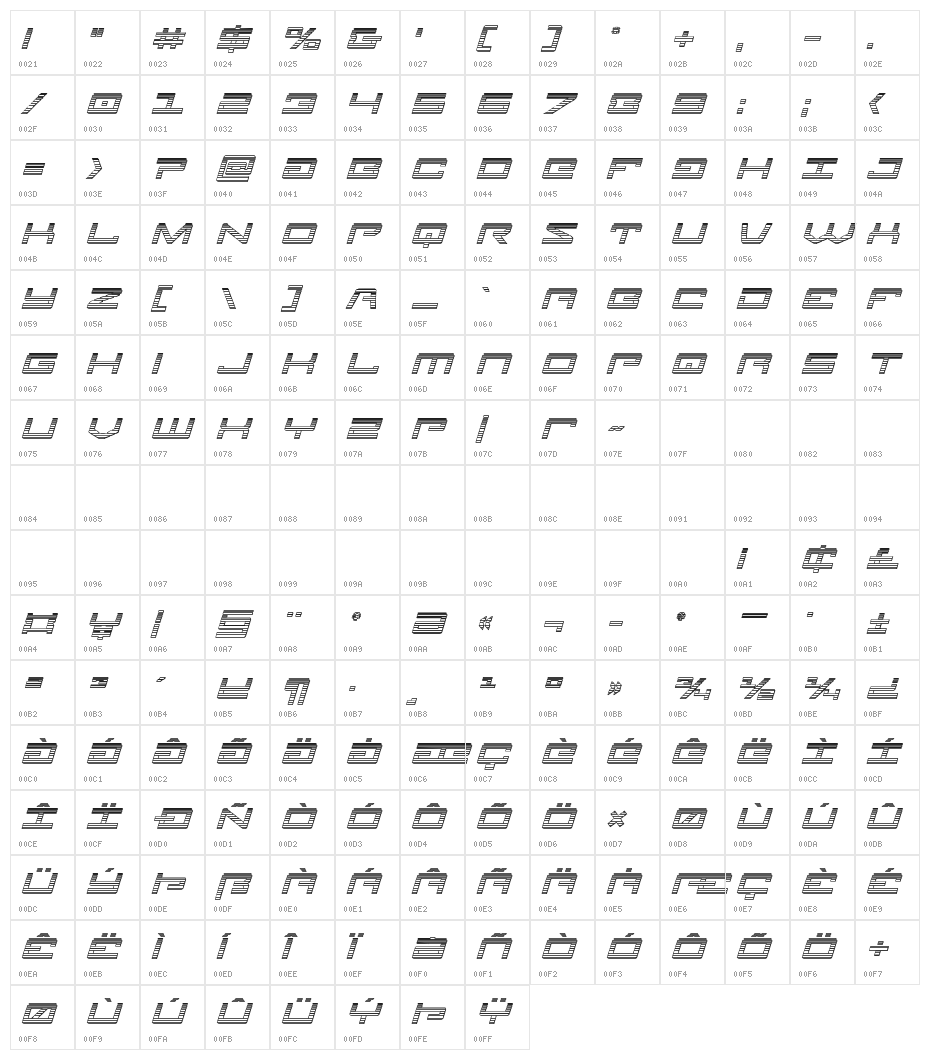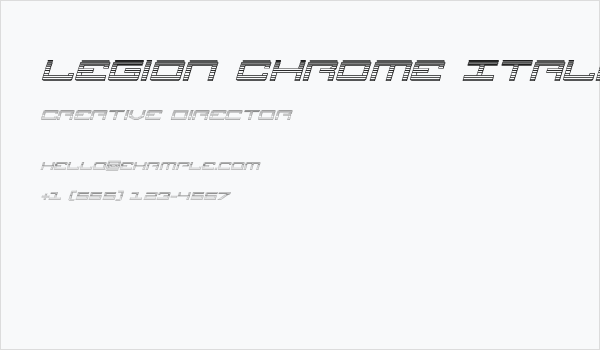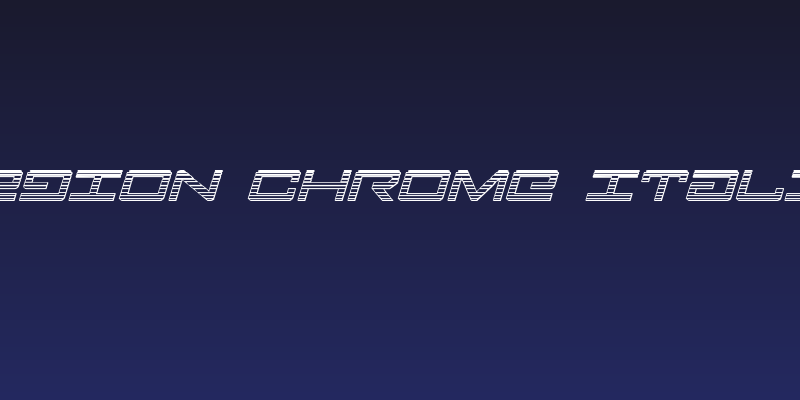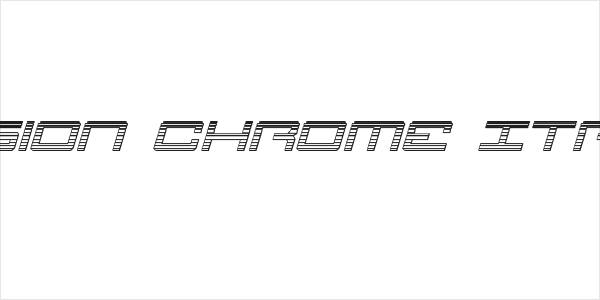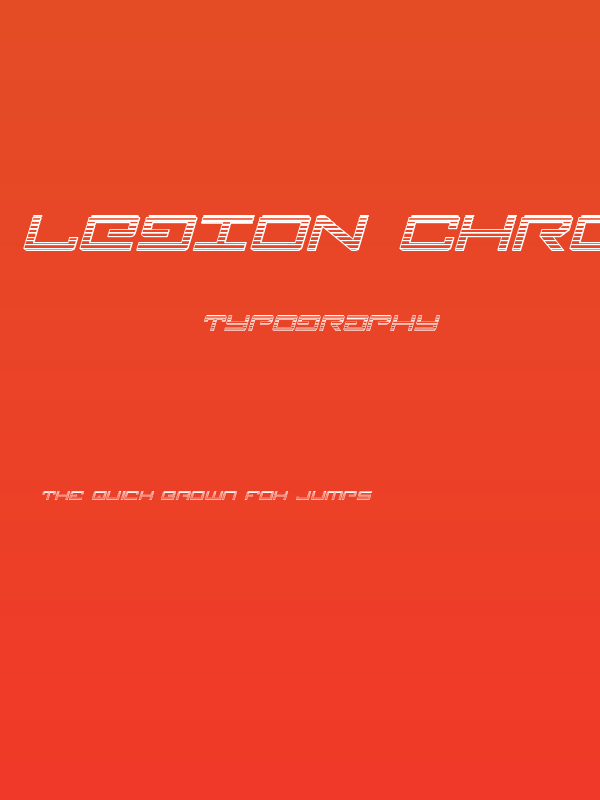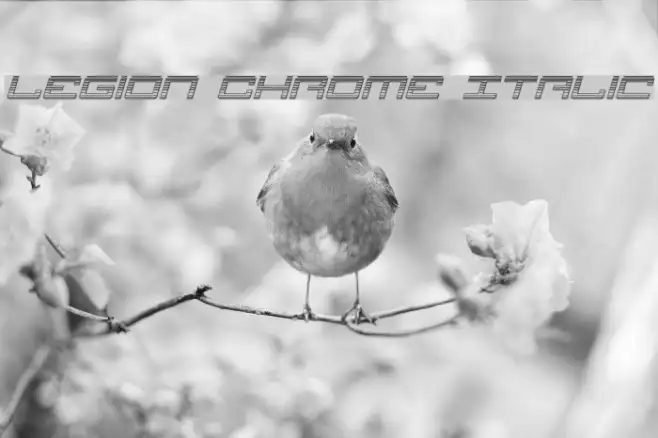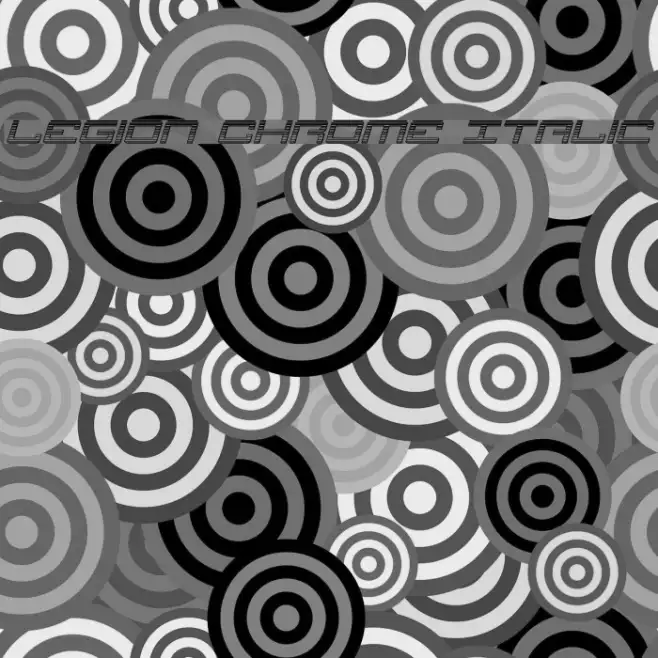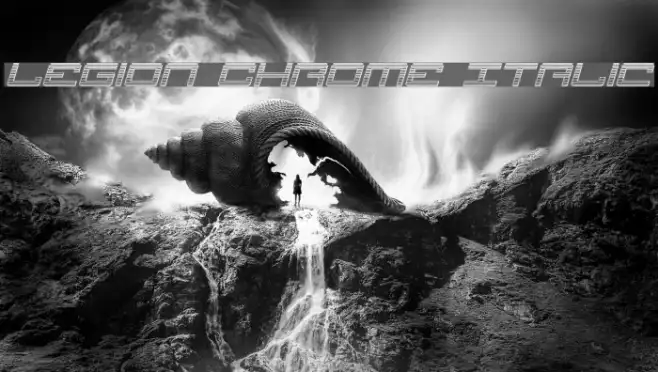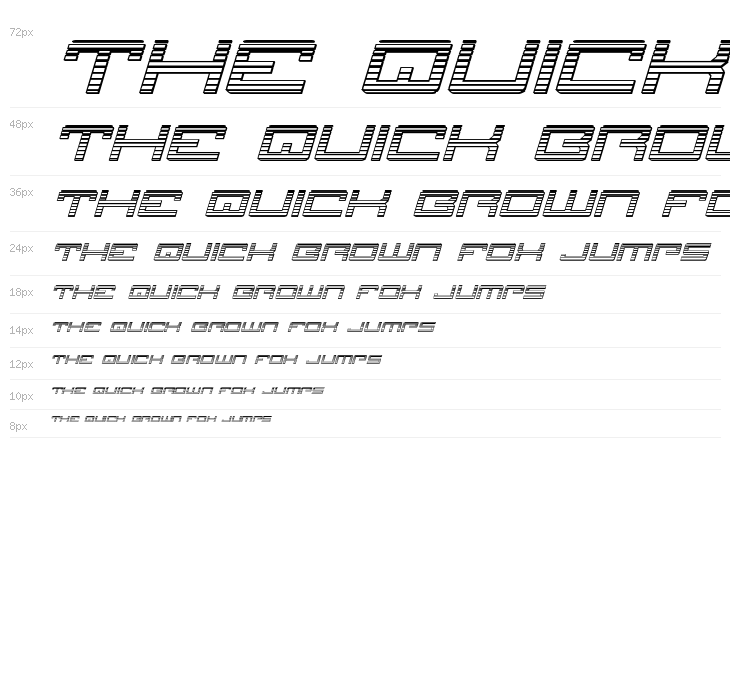
Legion Chrome Italic Font
Legion Chrome Italic Description
This font features a futuristic and dynamic design with a distinct italic slant. Each character is composed of multiple parallel lines, creating a striped effect that adds depth and movement. The geometric structure is consistent across uppercase, lowercase, and numeric characters, maintaining a cohesive look. The special characters are designed with the same attention to detail, ensuring they integrate seamlessly with the rest of the font. This font's unique style makes it stand out, ideal for projects that require a modern and edgy aesthetic.
LEGION-CHROME-ITALIC UPPERCASE
LEGION-CHROME-ITALIC LOWERCASE
LEGION-CHROME-ITALIC OTHER CHARS
| Proposed Projects | Ideal for sci-fi themed posters, video game titles, tech branding, and modern digital interfaces. |